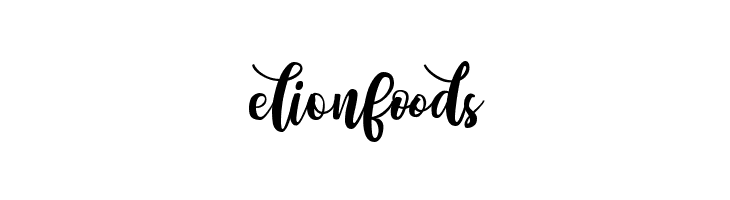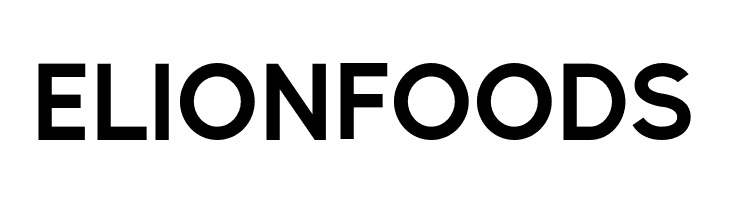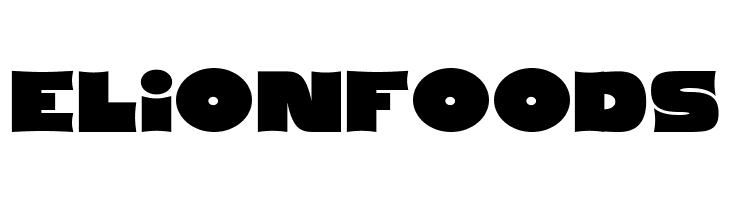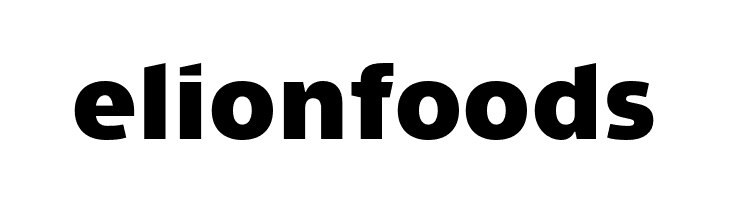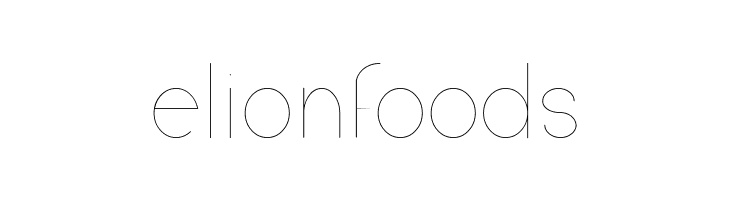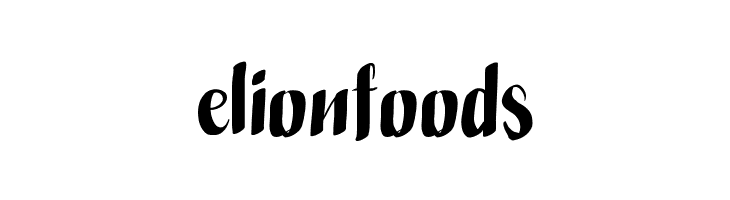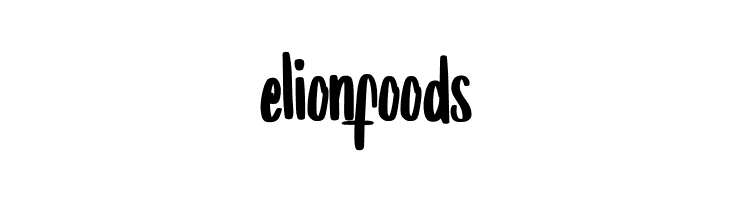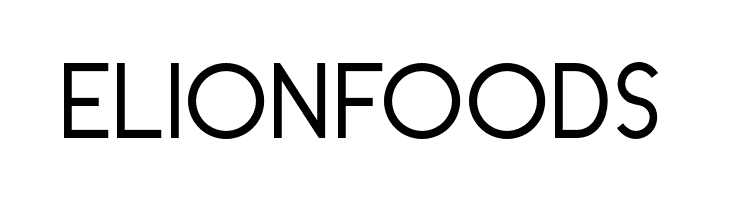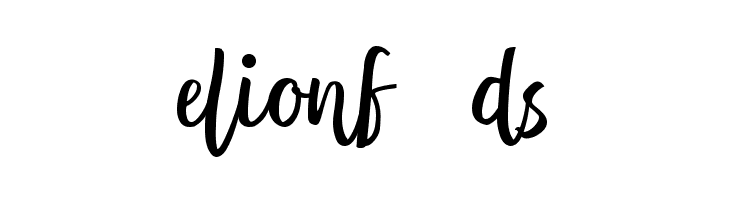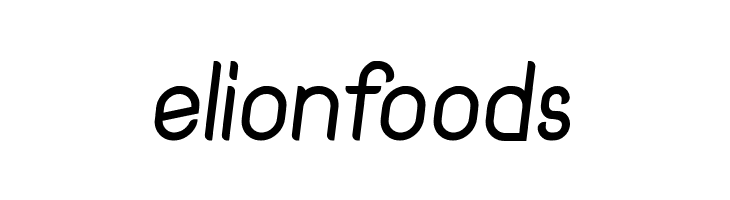
A flowing, cursive script font with elegant curves and a hand-drawn look.
A modern, geometric sans-serif font with uniform strokes and balanced characters.
A bold, geometric font with a playful and decorative style.
A bold, modern sans-serif font with uniform strokes and high legibility.
A sleek, modern font with thin, elongated letterforms and minimal contrast.
A bold, dynamic handwritten font with fluid strokes and a casual elegance.
A playful, handwritten font with exaggerated curves and a whimsical style.
A clean, modern sans-serif font with geometric influences.
A lively, expressive handwritten font with dynamic strokes and a playful bounce.
A modern, semi-bold italic font with rounded edges and medium contrast.